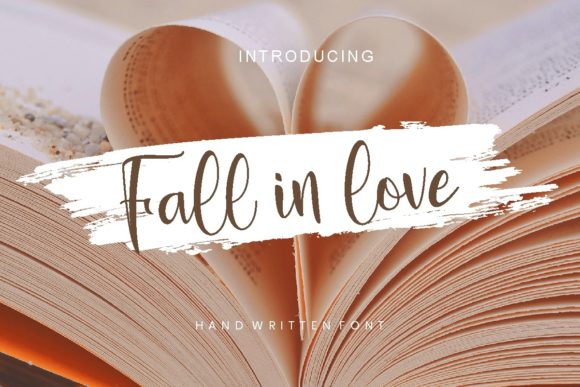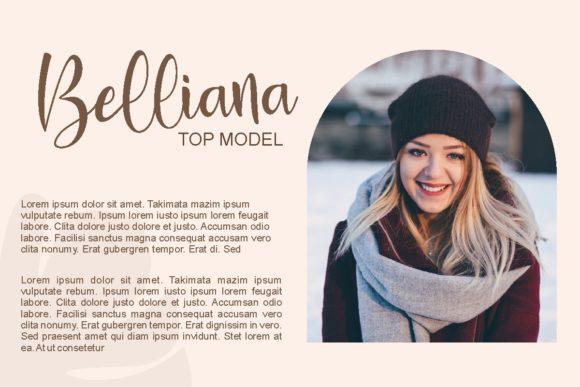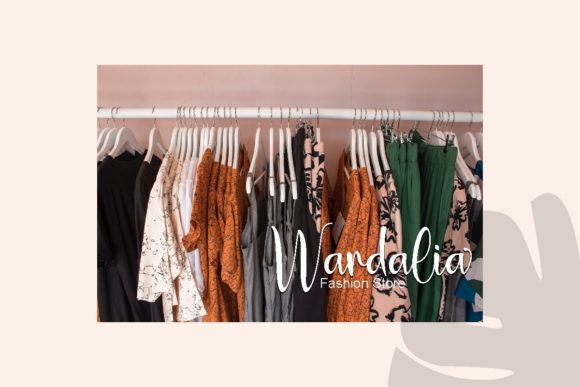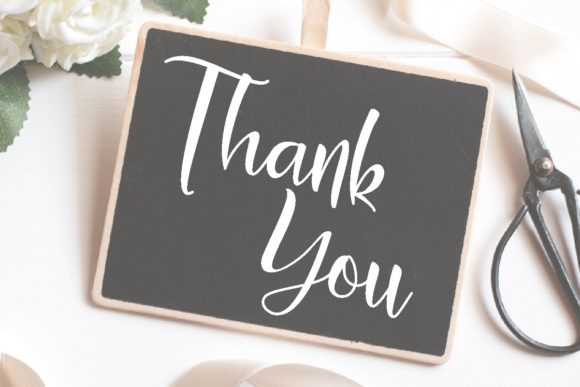
Fall in Love Font
About Fall in Love Font
Fall in Love is a lovely and delicate script font that exudes elegance and class. This font was particularly crafted for those who need a beautiful and refreshing look to their designs. You can add this elegant font to fashion, magazines, clothing stores, jewelry, labels, logos, quotes, social media posts, and more!